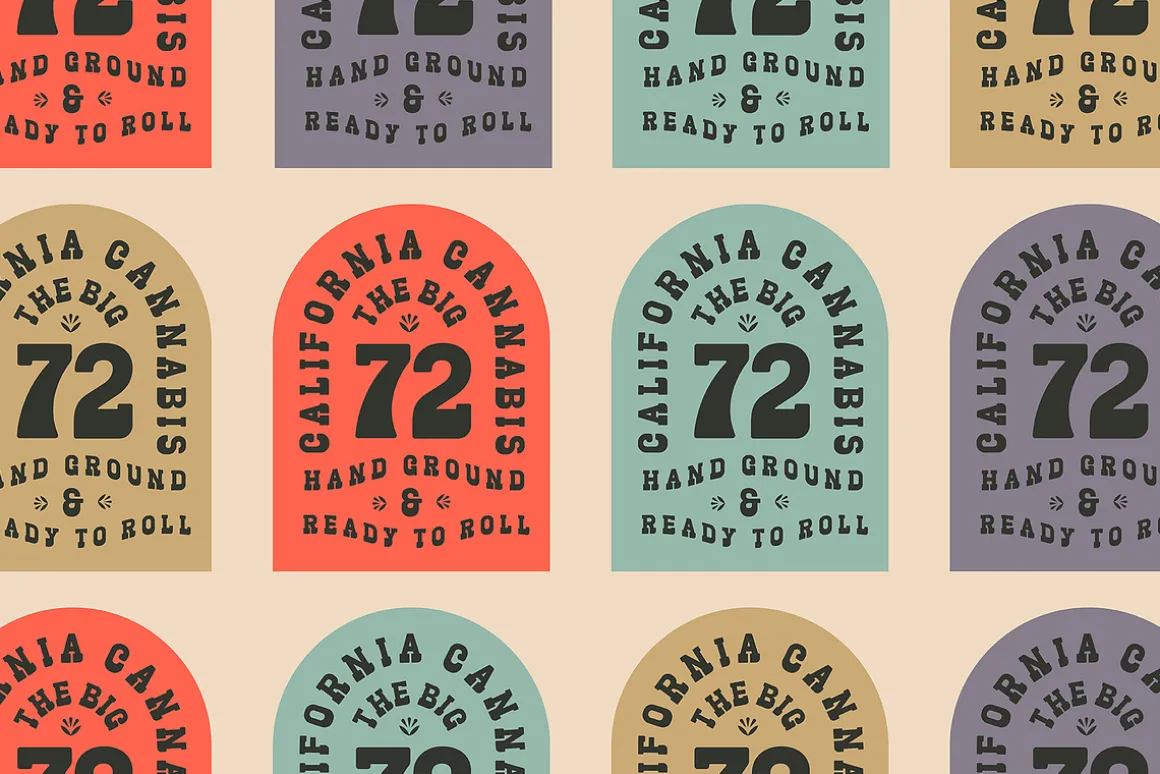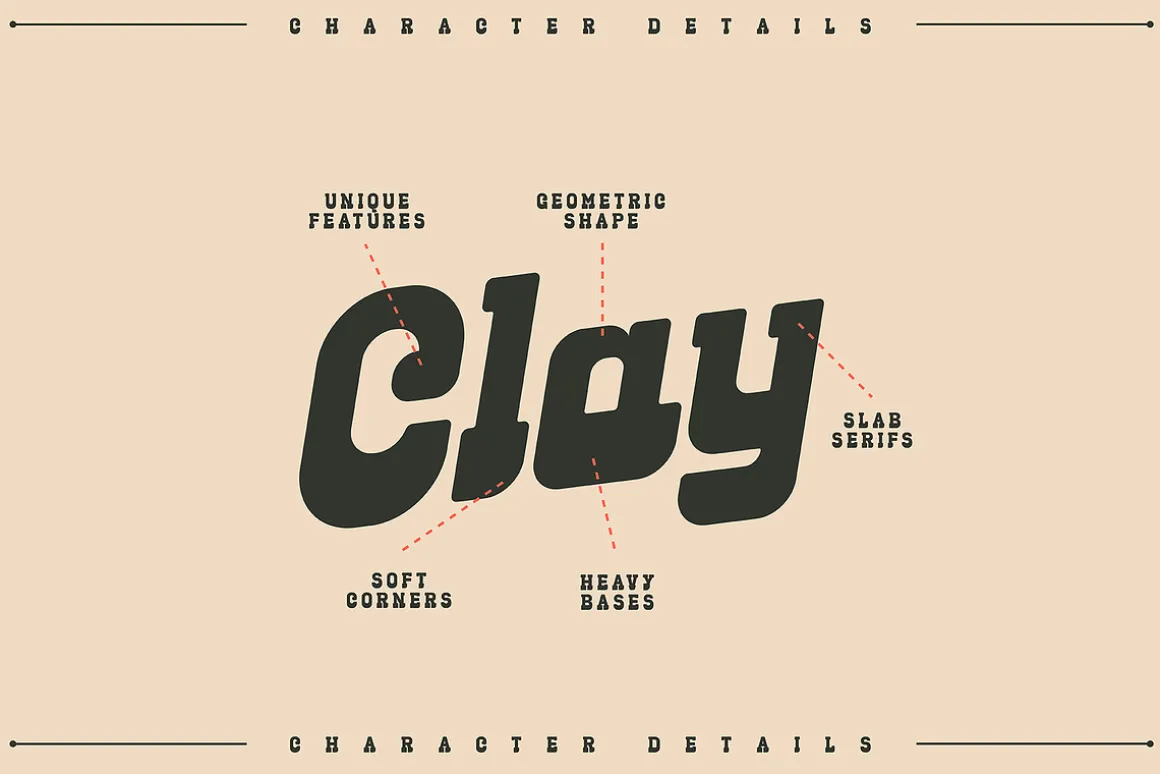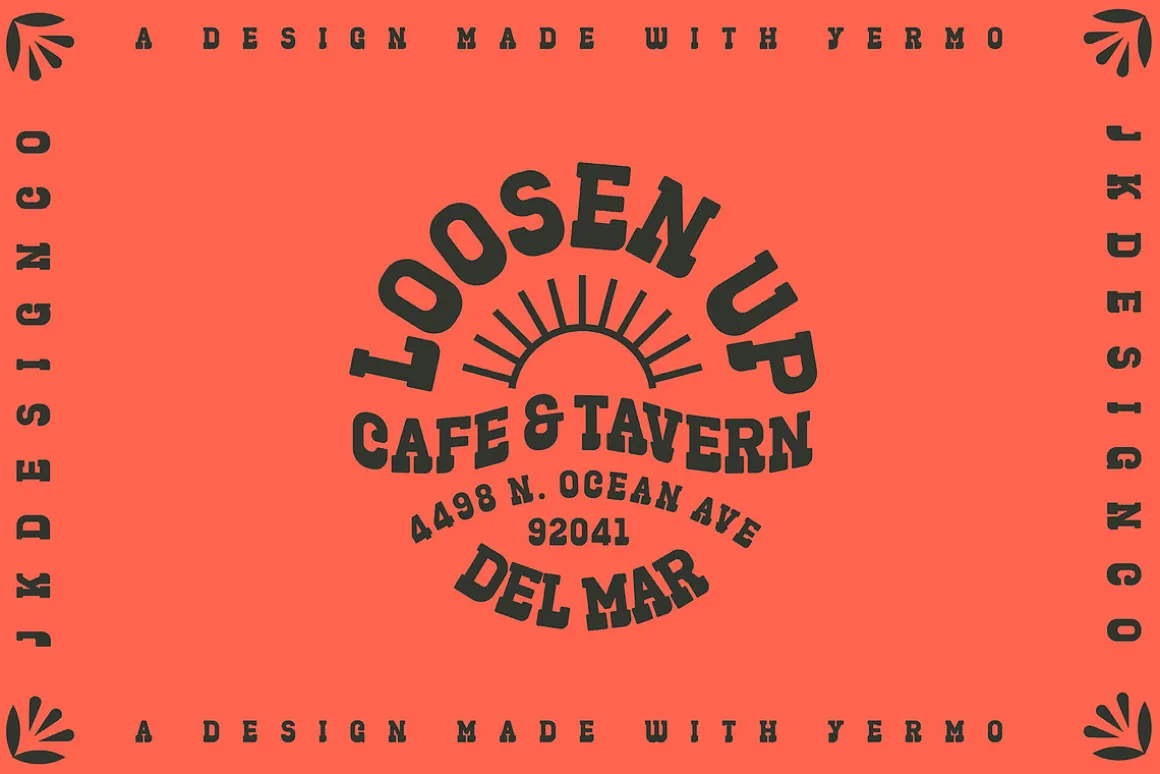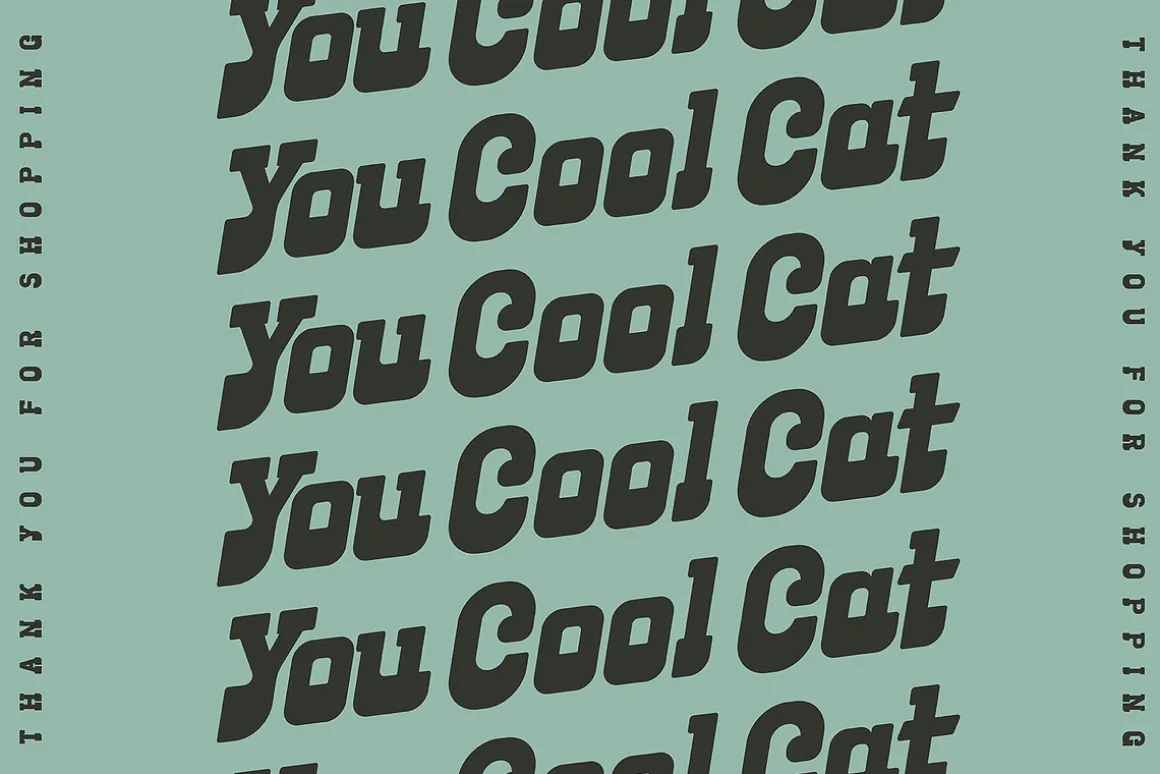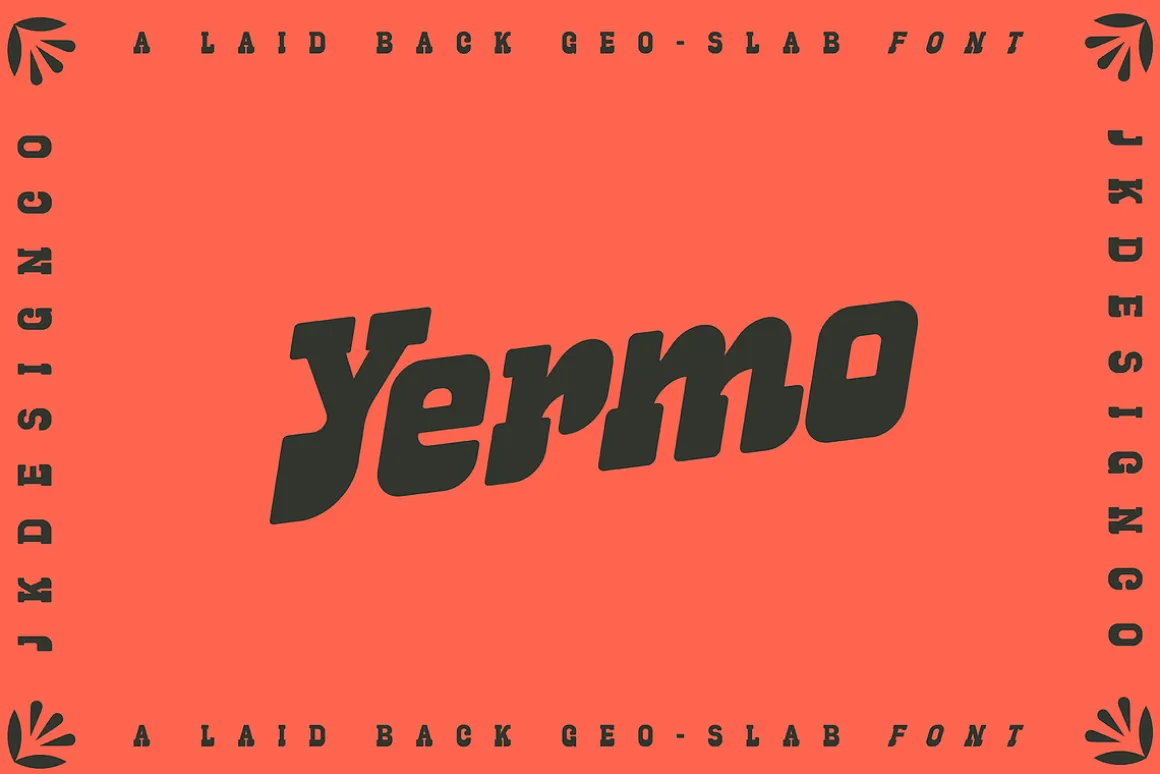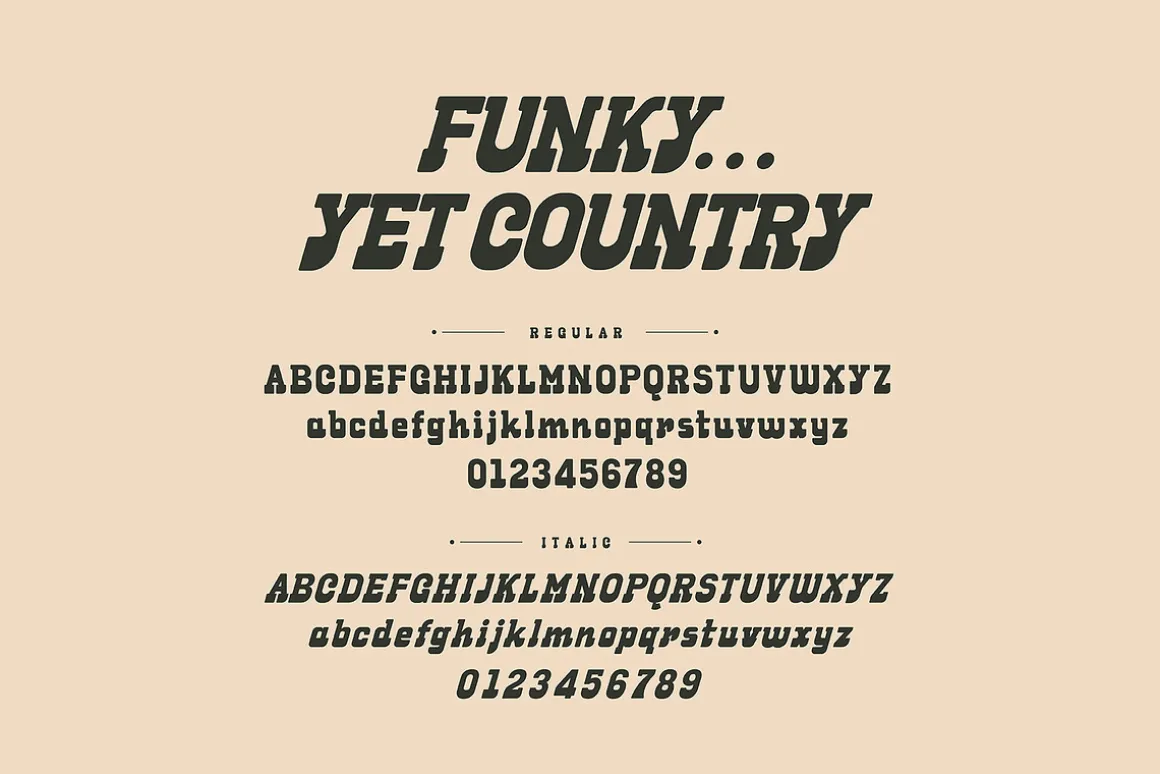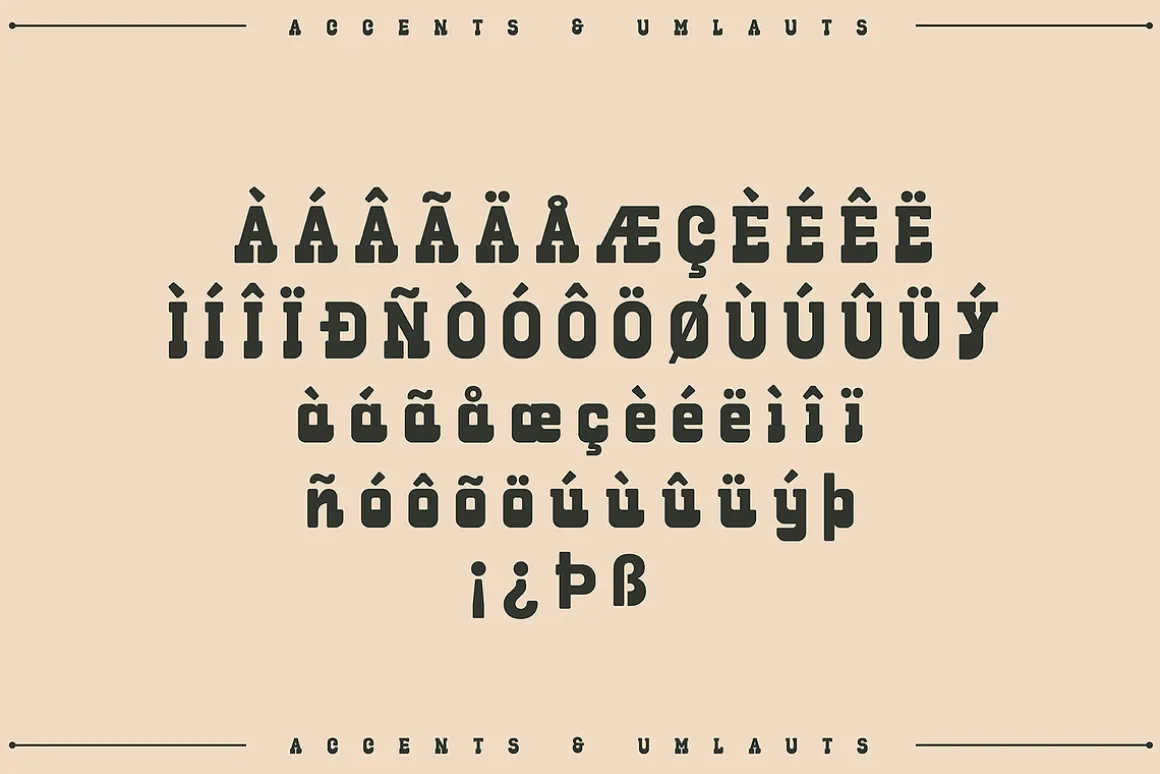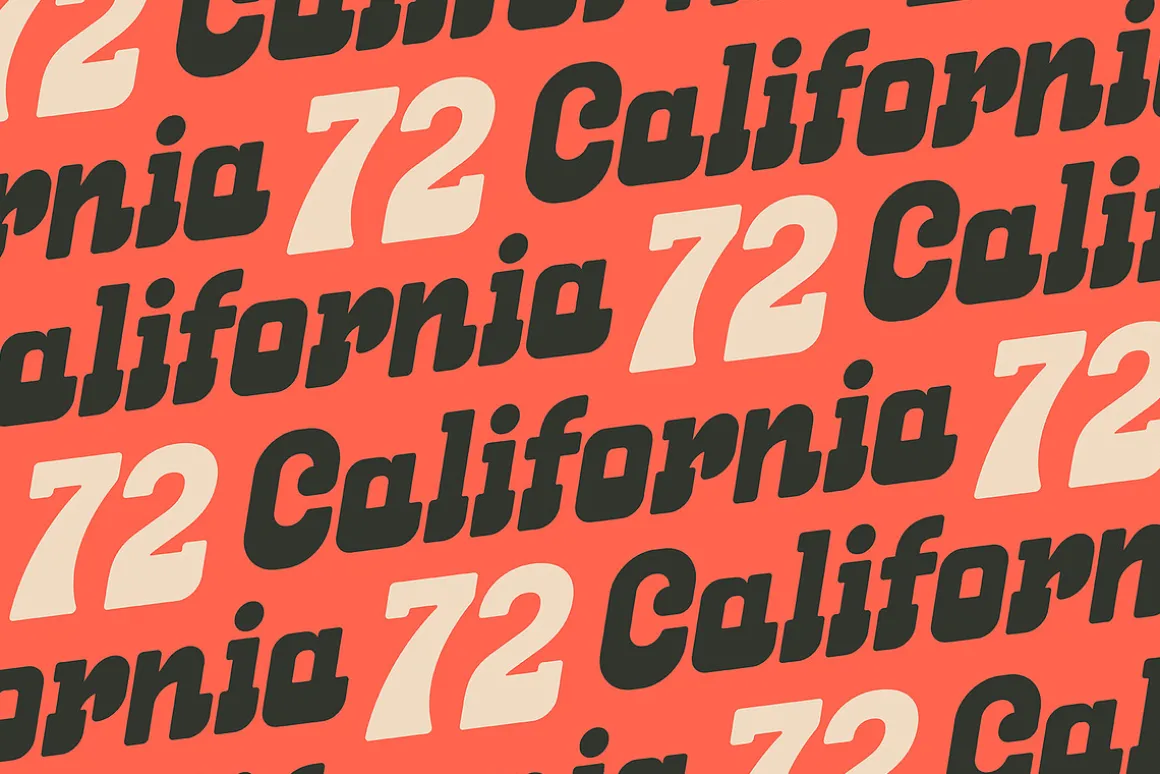
Yermo is a hybrid typeface influenced by 1970s psychedelia, toughened by country grit and modernized with geometric shapes. It was designed to capture a certain blurring of cultural lines between the laid back vibes of Southern California, the gritty Arizona desert and the vibrant latin culture of northern Mexico.
One might say that if Yermo were a person, he’d be an old, pot-smokin’ hippie that retired to the dry hills of southern Arizona. He rides his trusty horse around the cattle ranch by day, and plays a mean latin guitar at the local tavern by night. I imagine he‘s got braided pigtails, not unlike his hero Willie Nelson. And I wouldn’t doubt he’d give old Willie a run for his money when it comes to smoking Mary-Jane.
Yermo draws its California influence through slightly bottom-heavy characters. These features are suggestive of typefaces made popular during the hippie era. However, Yermo uses this feature subtly, adding weight to each character base without being overly psychedelic. Selective characters emphasize the 1970s influence, while others take a step back from it. Take the capital “Y,” for example. The tail widens and flares at the bottom, adding a retro flair to certain character combinations, while the capital “C” keeps its heavier base hidden by other unique characteristics. Balancing out Yermo’s retro California vibe is the addition of slab serifs that add a certain Southwesternflair. It’s these serifs that give Yermo a strong stance and a bit of a twang.
2 different type styles
- Yermo Regular
- Yermo Italic